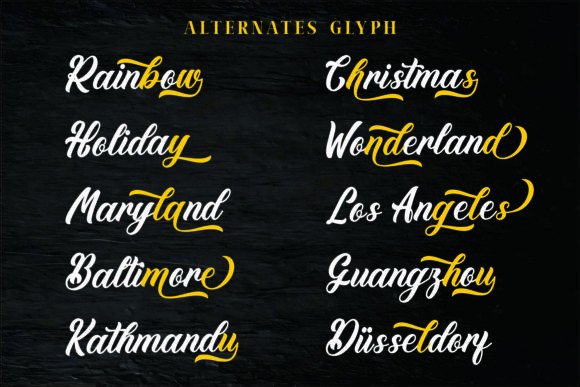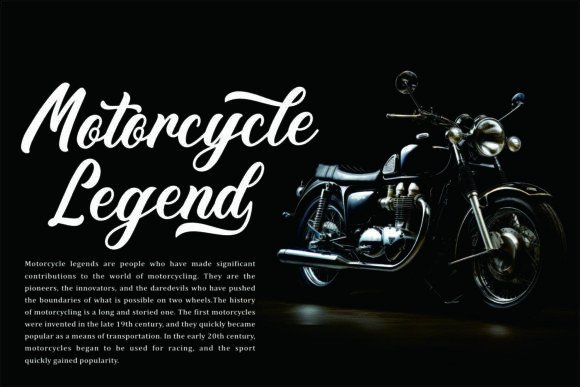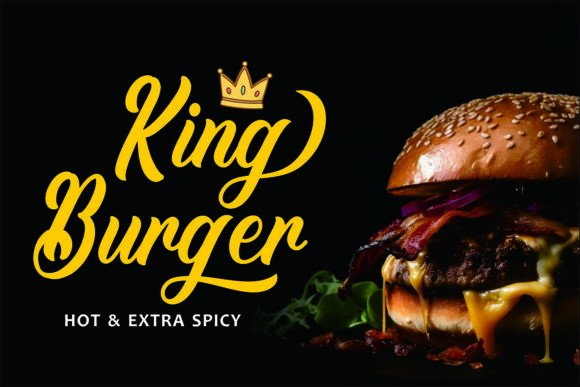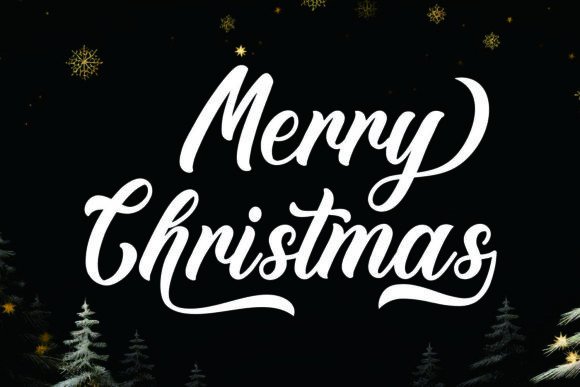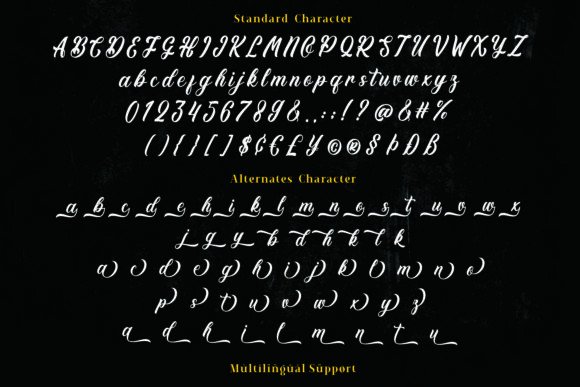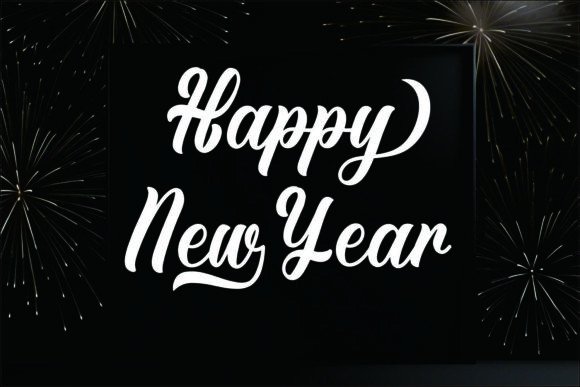
Introducing Buckland Font: A Timeless Vintage Script for Modern Designs
In the world of typography, few fonts manage to capture the essence of multiple decades while still feeling fresh and contemporary. Buckland Font is one such exceptional typeface that seamlessly blends the nostalgic charm of the 70s, 80s, and 90s with a modern twist. This vintage script handwritten font is designed to bring a touch of retro sophistication to any project, making it an ideal choice for designers and crafters looking to add a unique flair to their work.
The Essence of Buckland Font
Buckland Font is more than just a typeface; it’s a time capsule of elegance and charm. Its elegant, flowing curves and nostalgic essence evoke memories of a bygone era, transporting us back to a time of disco, neon lights, and iconic fashion. The font’s design is meticulously crafted to reflect the spirit of the 70s, 80s, and 90s, making it perfect for projects that require a dash of vintage glamour.
Key Features of Buckland Font
- Elegant and Flowing Curves: Buckland Font boasts beautiful, smooth curves that give it a luxurious and sophisticated feel, perfect for high-end branding and designs.
- Retro Sophistication: The font’s vintage essence adds a touch of nostalgia to any project, making it ideal for designs that require a classic, timeless look.
- Versatility: Buckland Font is incredibly versatile, suitable for a wide range of projects including branding, posters, invitations, and more.
- Contemporary Twist: While deeply rooted in vintage style, Buckland Font has a contemporary twist that makes it suitable for modern designs and audiences.
Use Cases for Buckland Font
Buckland Font’s versatility makes it an excellent choice for various design projects. Here are some of the best use cases for this beautiful typeface:
- Branding: Add a touch of elegance and retro charm to your brand’s identity with Buckland Font. It’s perfect for logos, business cards, and packaging designs.
- Posters and Flyers: Create eye-catching posters and flyers with Buckland Font. Its vintage appeal makes it ideal for advertising events, concerts, and exhibitions with a retro vibe.
- Invitations: Whether it’s a wedding, birthday party, or any other celebration, Buckland Font can add a touch of sophistication and nostalgia to your invitations.
- Digital Content: Use Buckland Font in your digital content, such as blog headers, social media graphics, and email newsletters, to give it a unique and memorable look.
Why Choose Buckland Font?
In a sea of modern and minimalist fonts, Buckland Font stands out with its unique blend of vintage charm and contemporary style. Here are a few reasons why designers and crafters should consider Buckland Font for their next project:
- Unique Aesthetic: Buckland Font offers a distinctive look that can set your designs apart from the crowd.
- Emotional Connection: The nostalgic essence of the font can create an emotional connection with your audience, making your designs more relatable and engaging.
- Versatility: Its versatility means you can use Buckland Font across various projects, from print to digital, without worrying about it looking out of place.
Buckland Font is a remarkable typeface that brings the charm of the 70s, 80s, and 90s to the modern design landscape. Its elegant curves, nostalgic appeal, and contemporary twist make it an excellent choice for designers and crafters looking to add a touch of retro sophistication to their work. Whether you’re working on branding, posters, invitations, or digital content, Buckland Font is sure to elevate your designs and leave a lasting impression on your audience.
So, if you’re looking to infuse your designs with a bit of vintage glamour and a whole lot of personality, look no further than Buckland Font. It’s not just a font; it’s a statement piece that can transform your designs and connect with your audience on a deeper level.